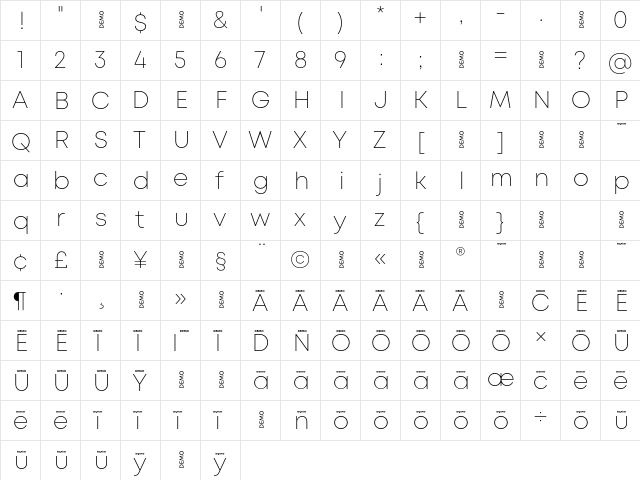
Mont ExtraLight DEMO
Design Context for Mont Typeface
Mont is a composed and adaptable typeface that performs quietly and consistently across a wide range of design contexts. The delicate stroke weight brings airiness and refinement to layouts.